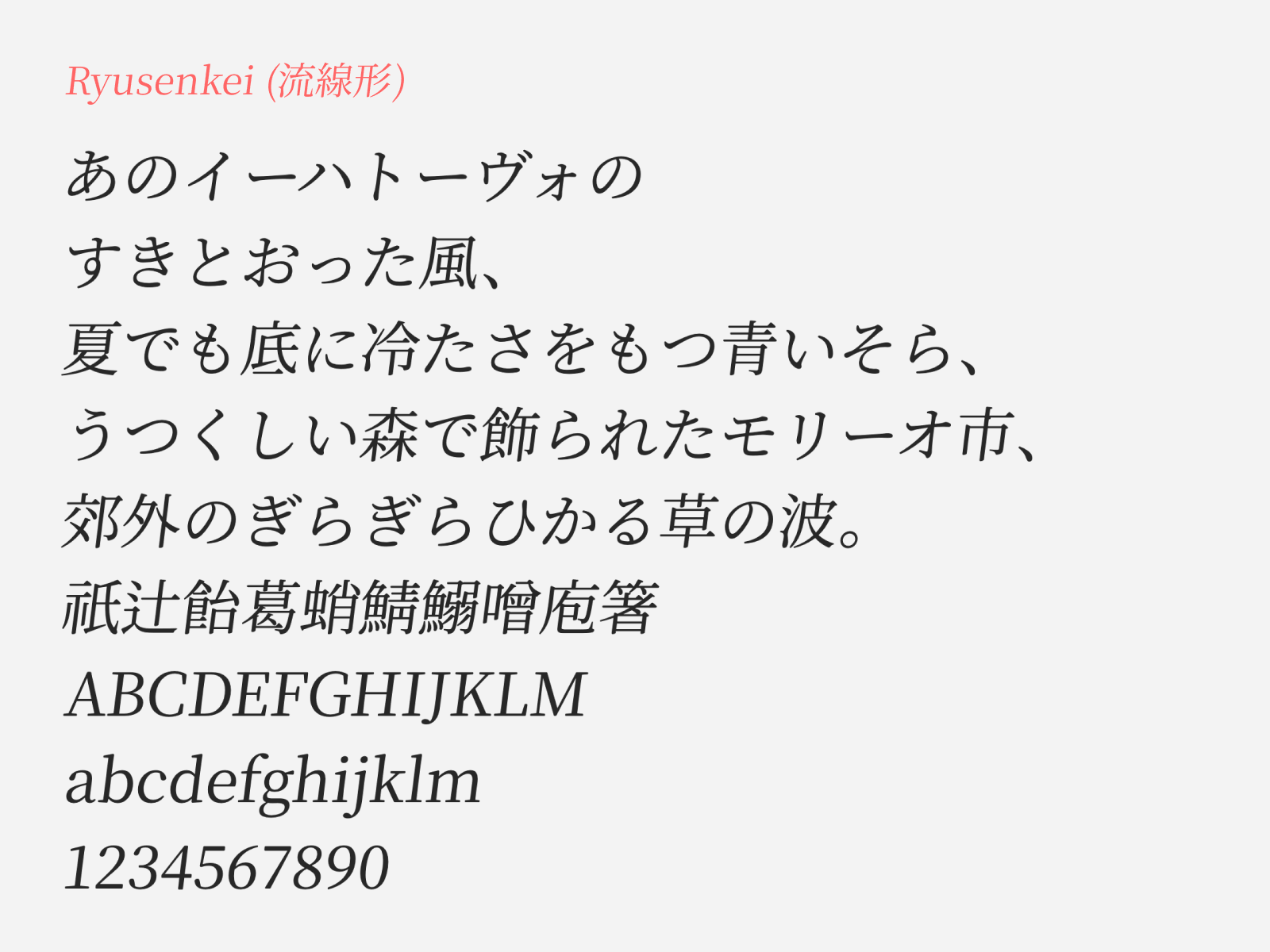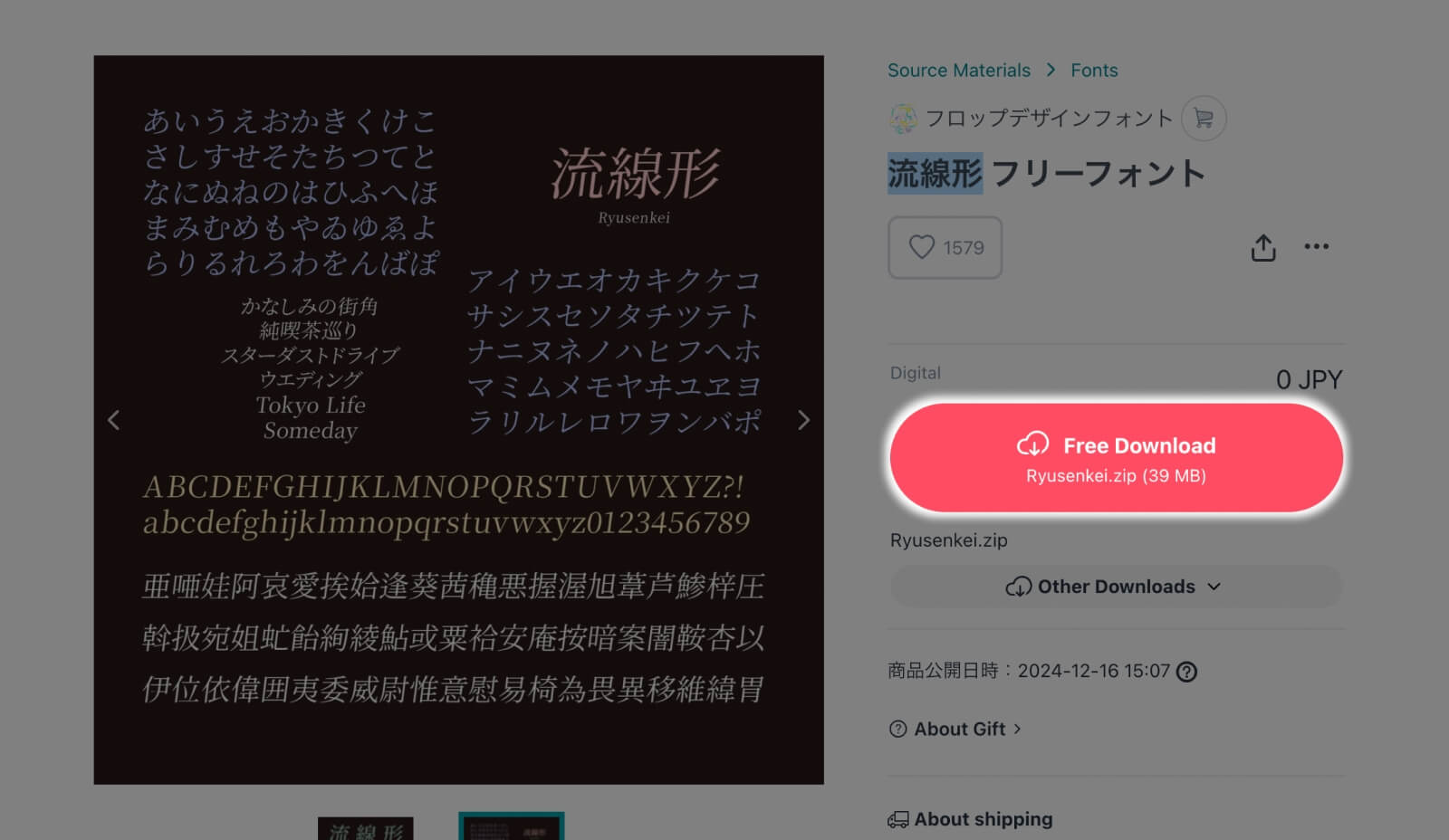
Ryusenkei
Ryusenkei (流線形) is a free Japanese italic mincho font derived from Adobe’s Source Han Serif. The name 流線形 means “streamlined” which reflects exactly the font aesthetic at work here. Flop Design Font, the author of this font, took the elegance already baked into Source Han Serif and tilted mildly by 7 degrees, giving it an italic look, then the stroke edges are rounded to give it a warmer, more approachable quality that balances the inherent formality of mincho.
This italic, elegant font comes with four font weights: ExtraLight, Regular, Bold and Black. I believe they skipped the weights in-between (eg. Medium, SemiBold etc) so that it can create a stronger contrast from these four weights when you using them together. Ryusenkei is well-suited for editorial layouts, creative video titles, and any context where you want refined type with a little movement and ease. It’s free to download and be used on commercial projects, as it’s released under SIL Open Font License 1.1.